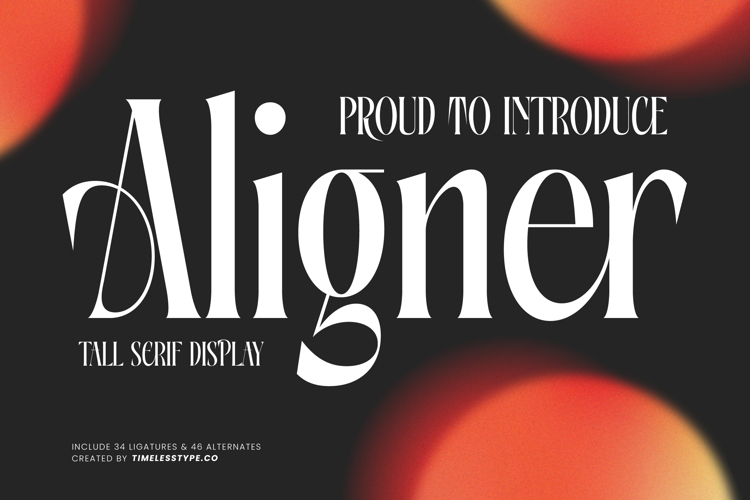
Aligner - Tall Serif Display
Aligner is a tall serif display font that blends sleek elegance with striking modernity. Its elongated proportions, sharp serifs, and stylish curves make it a standout typeface for projects that require sophistication with a bold edge. Designed with 34 ligatures and 46 alternates, Aligner provides designers with the flexibility to craft expressive and unique compositions that feel both timeless and contemporary.
This font is perfect for headline typography, where its tall forms and refined details instantly capture attention on posters, banners, and editorial spreads. In branding and logo design, Aligner communicates exclusivity and class, making it an excellent choice for fashion houses, luxury products, creative studios, and lifestyle brands seeking a premium identity. Its bold and stylish structure also makes it highly effective for packaging design, particularly for perfumes, wine, cosmetics, and artisanal goods where typography plays a central role in conveying quality and sophistication.
Aligner thrives in advertising campaigns, event posters, and promotional graphics, where its elegant alternates and ligatures elevate the storytelling with artistic nuance. On digital platforms and social media, it brings clarity while enhancing layouts with a chic, editorial-ready look, helping brands achieve a sophisticated modern presence.
With multilingual support, Aligner adapts seamlessly to global projects, making it suitable for international branding and publishing.
Ultimately, Aligner is more than just a display serif—it is a statement of refined artistry and bold elegance. Whether used in editorials, branding, packaging, or digital design, it ensures every project communicates authority, creativity, and timeless style.